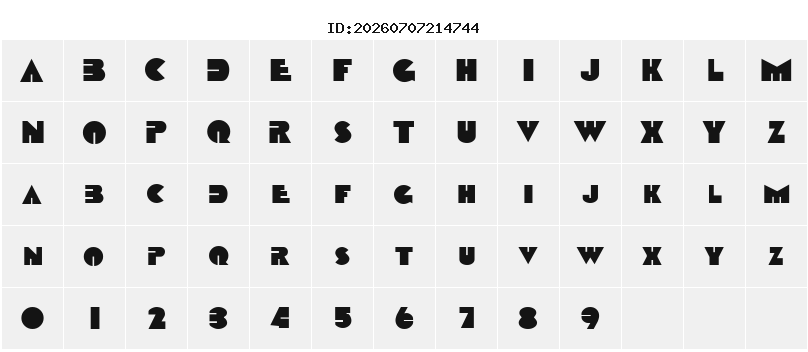
Datcotheque Preview
• Font Name: Datcotheque
• Full Font Name: Datcotheque Regular
About Datcotheque.ttf
Datcotheque.ttf is a modern, elegant sans-serif font designed for ultimate readability and visual harmony. Perfect for branding, headlines, web design, and print materials.